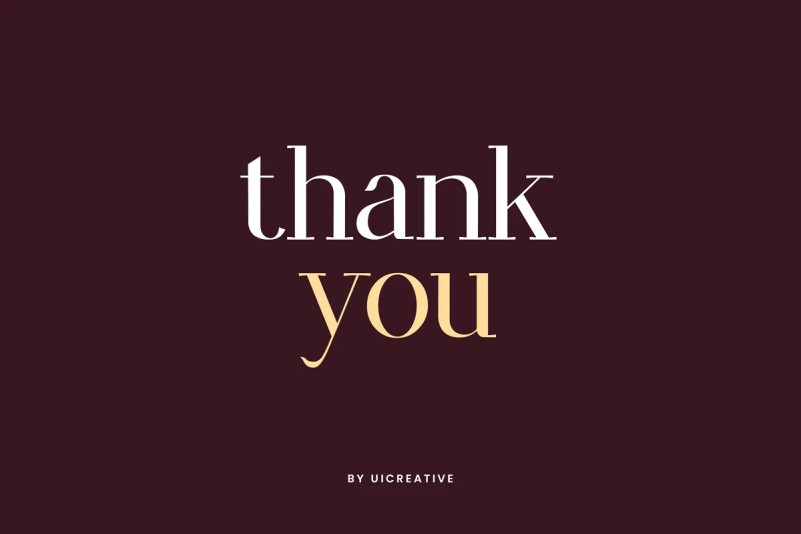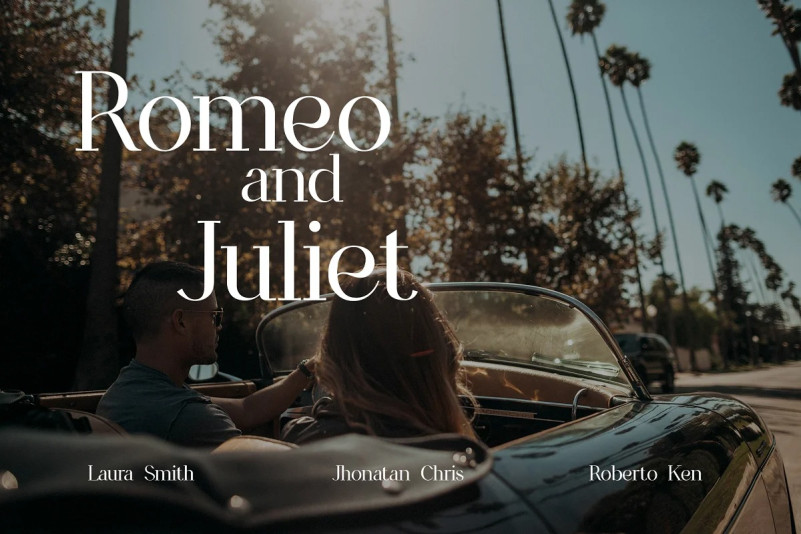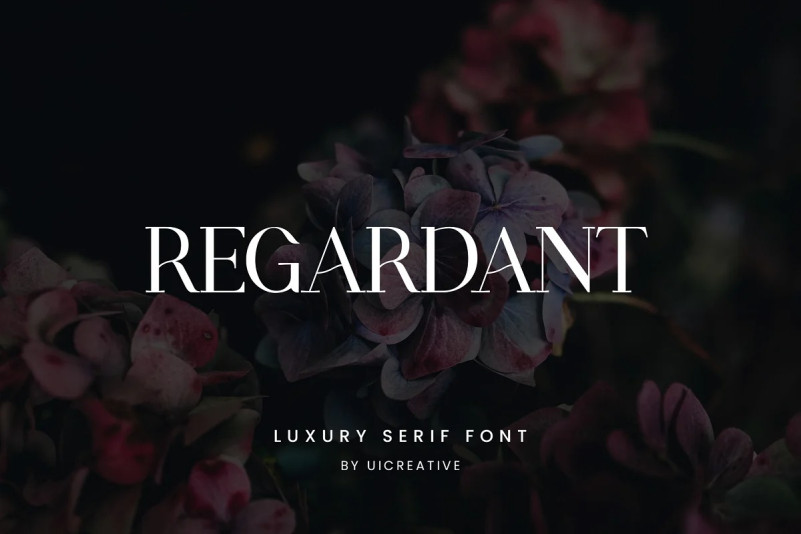
Regardant Font
Regardant Font – Luxury Serif Font. Modern Serif font that feels beautiful classy, elegant, and modern. This font is ideally suited for a wide variety of projects, such as signature, stationery, logo, wedding, typography quotes, magazine or book covers, website headers, clothing, branding, packaging design, and more. Also, fashion-related branding or editorial design displays both masculine and feminine qualities.